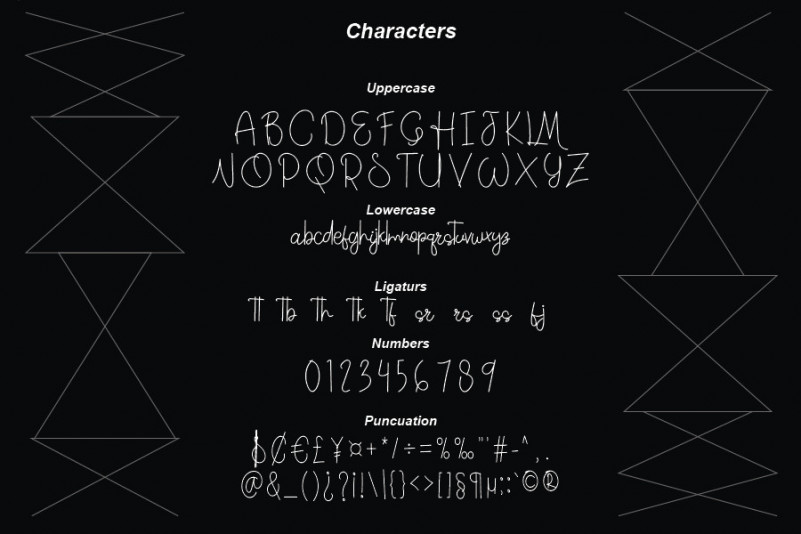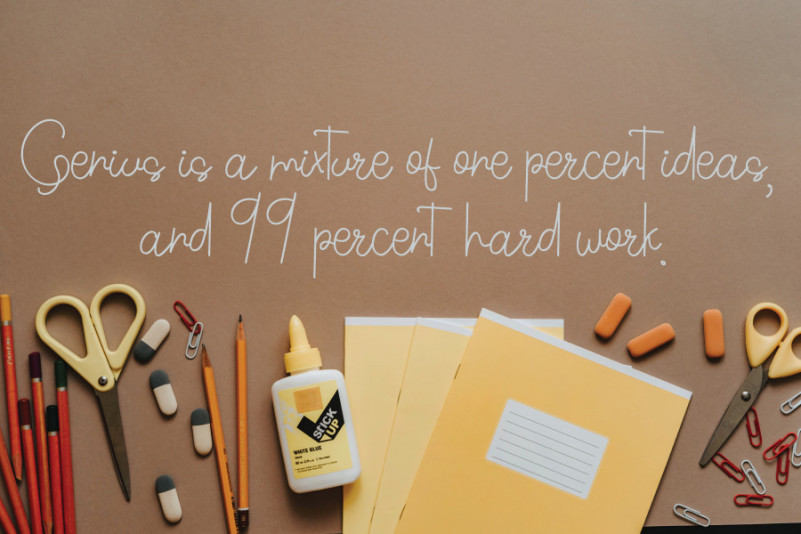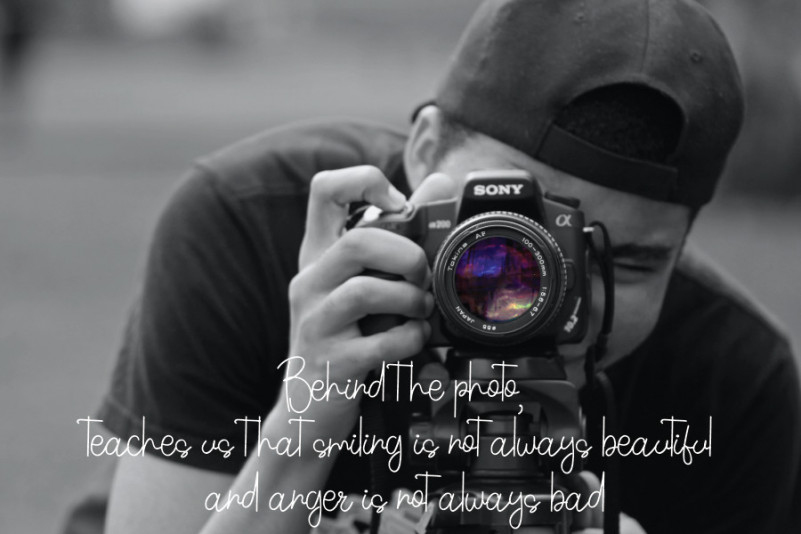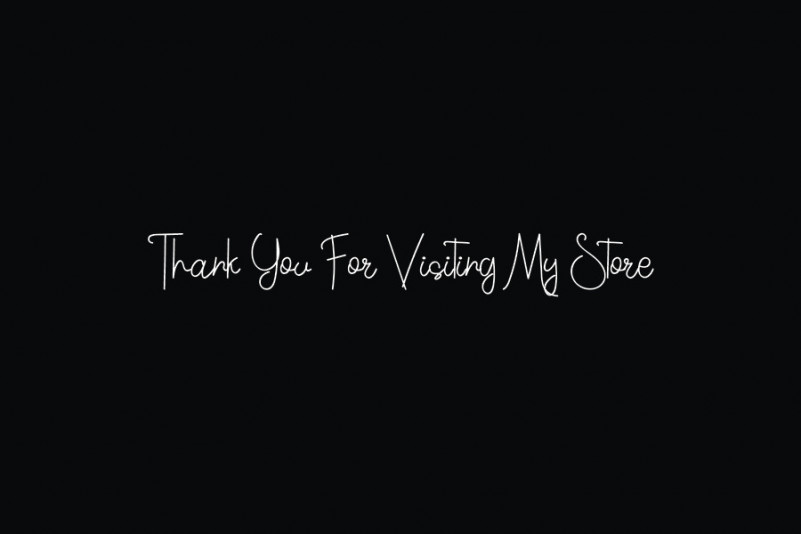
Smart Ghosting Font
Smart Ghosting Handwritten Font
This is a sweet, all round and flexible handwritten font. Warm, quirky and jolly, this font will turn each of your project ideas into real works of art. Have fun with this beautiful font and explore its endless variations.